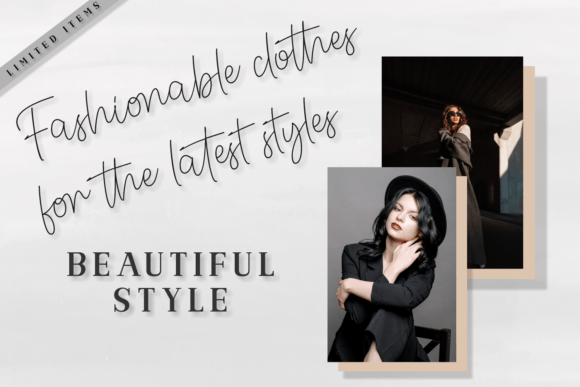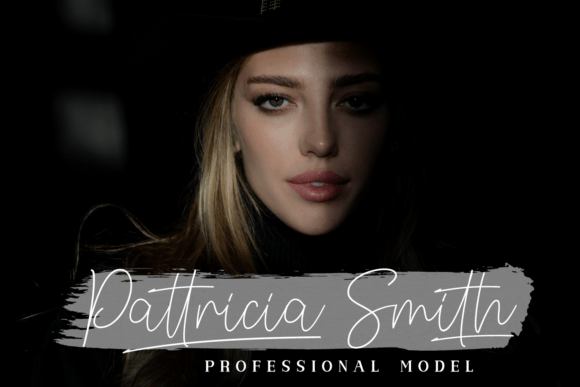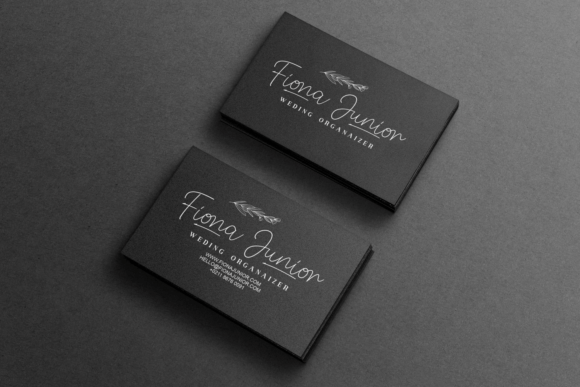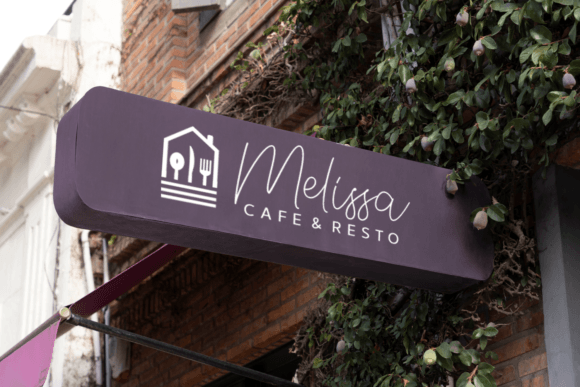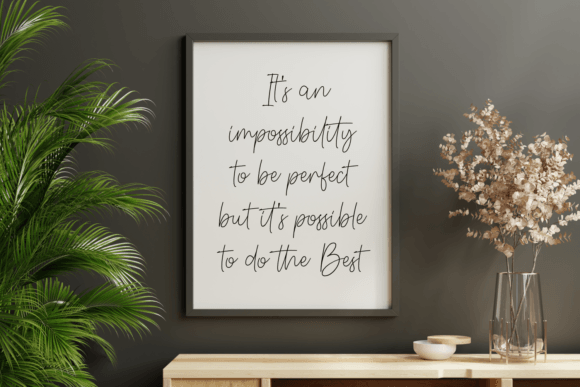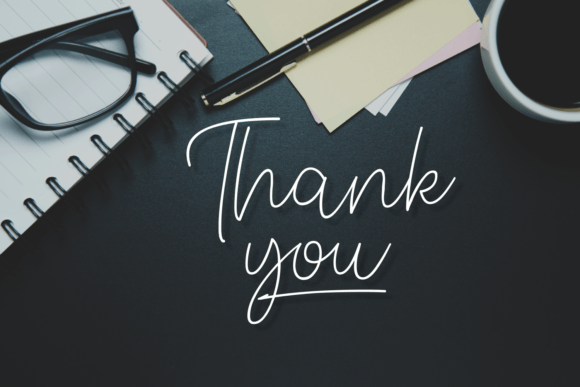
Unleash the Romance with Billion Signature Font
Do you remember the first time you received a handwritten love letter? The way the words danced across the page, the flourish of the writer’s signature, and the sense of intimacy that came with it? That’s the feeling Billion Signature Font aims to capture – the essence of old-fashioned handwritten letters, perfect for creating a sophisticated and romantic atmosphere.
Billion Signature Font is a stylish and elegant script font designed to add a touch of whimsy and charm to any project. Its smooth curves, fancy swirls, and attractive flourishes make it a valuable asset for designers looking to create invitations, posters, and other special occasions that exude elegance and sophistication.
With its PUA encoding, accessing all glyphs and swashes is effortless, allowing you to unleash your creativity and add a personal touch to your designs. Whether you’re a seasoned designer or just starting out, Billion Signature Font is a must-have addition to your font collection.
Billion Signature Font Key Features
- Character Count: 1200+ glyphs, including Latin, Cyrillic, Greek, and Devanagari scripts
- Resolution: High-resolution font with precise strokes and subtle texture, suitable for printing at 300 DPI or higher
- Unique Characteristics: Hand-drawn style with unique flourishes and connecting strokes, giving it a personal and signature feel
Billion Signature Font Review
As a designer, I’ve had the chance to work with the Billion Signature Font, and I must say, it’s a unique and interesting addition to any design project. ✨ Here are some of the things that work well:
- ✨ Customizable: The font has a lot of customization options, from font sizes to line heights, which makes it versatile and easy to work with.
- ✨ Legible: The font is highly legible, making it perfect for body text, headings, and even signage.
- ✨ Versatile: The font works well in both digital and print mediums, which is a big plus for designers who need to adapt to different formats.
However, as with any font, there are some limitations to be aware of:
- ⚠️ Limited expressiveness: The font is very straightforward and lacks the expressiveness of some other fonts on the market.
- ⚠️ May not be suitable for creative fields: The font’s simplicity may make it less suitable for creative fields like advertising or branding.
Overall, the Billion Signature Font is a solid choice for designers who need a clean and simple font for their projects. It’s not going to blow you away with its expressiveness, but it gets the job done.
Tips for Getting the Most Out of Billion Signature Font
Use the font in combination with other design elements to create a unique and eye-catching visual identity. Experiment with different font sizes, colors, and styles to add depth and interest to your designs.
The Billion Signature Font is ideal for use in branding materials, such as business cards, letterheads, and brochures. It can also be used in digital designs, such as social media graphics, email templates, and website headers.